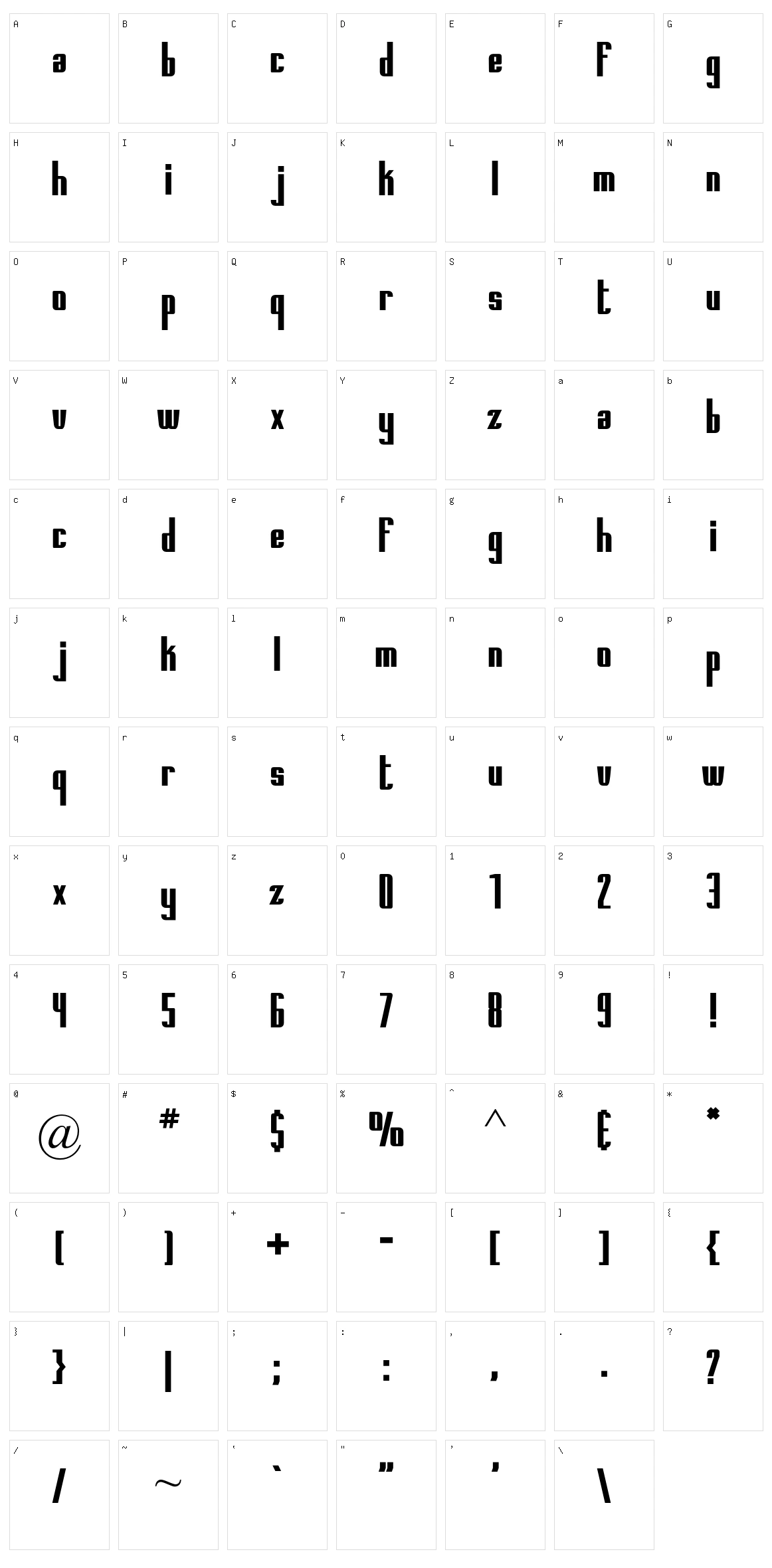
Printed Circuit Board
Designed by: JLH Fonts
Printed Circuit Board Font
The Printed Circuit Board font is based on the HP logo. It contains alphanumeric symbols, punctuation, currency symbols and international characters. It comes in Regular and Italic, the latter is 20 degrees slanted. Press Alt+1 to get the 1954 HP logo.